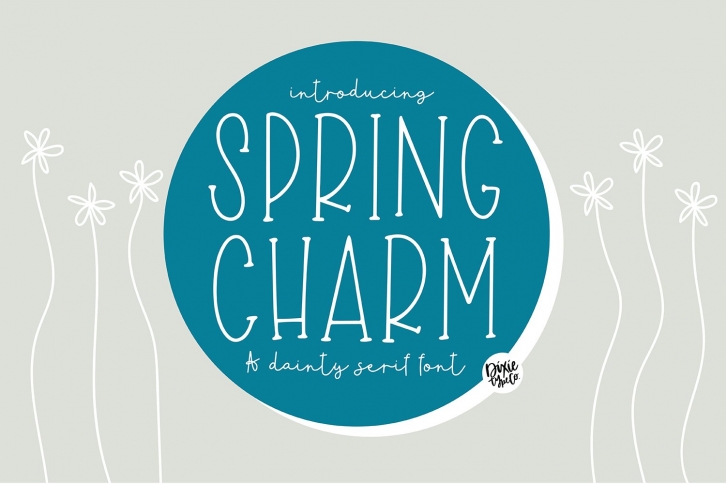
SPRING CHARM Dainty Serif Font Download
SPRING CHARM Dainty Serif is a trendy and unique font with an authentic style. It was designed by Dixie Type Co and it's a great choice for creative people who need such a font. It was released on February 5, 2021 and the file size is 19.24 MB. SPRING CHARM Dainty Serif will add an organic vibe to any design idea!